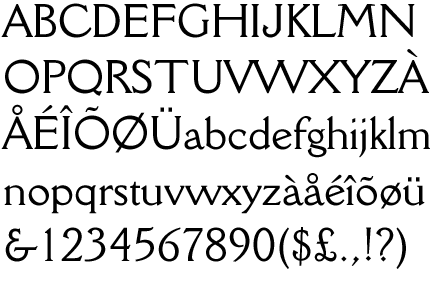
Appeal for Della Robbia font
David Webb (from the USA) recently approached Metal Type for an appeal for a font.
In David's own words:
"I am in the very early planning stages of a letterpress project, and am searching for a particular font: Della Robbia. The Museum of Printing History does not own this font, and so I am searching for anyone who has it and will let me use it for long enough to carry out the project. Compensation might be a copy of the book that I am planning to replicate in a very small edition fine art book: Two in Arcadia by Lucine Finch, a children's book published by Brentano in 1907.
"Della Robbia was designed by Thomas Maitland Cleland in 1902, and has a distinct Art Nouveau feel. I probably need 12 point, perhaps italic for a word or two, if that is an option."
Go to skylinetype.com and you can order a font of 12 point Della Robbia roman, just offered. I don't know if Schuyler has italic mats as well.